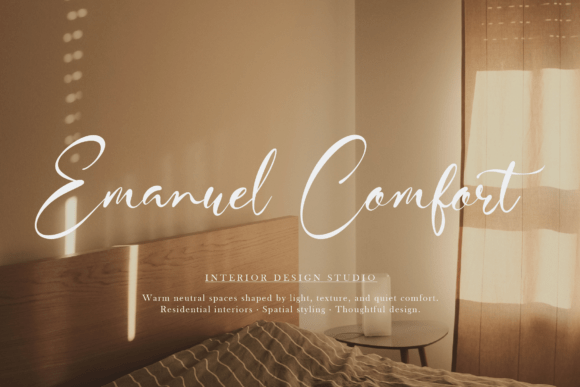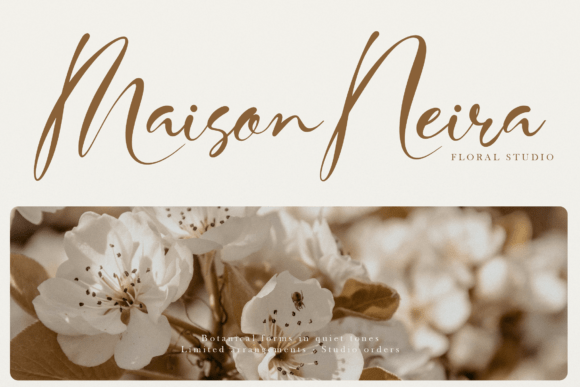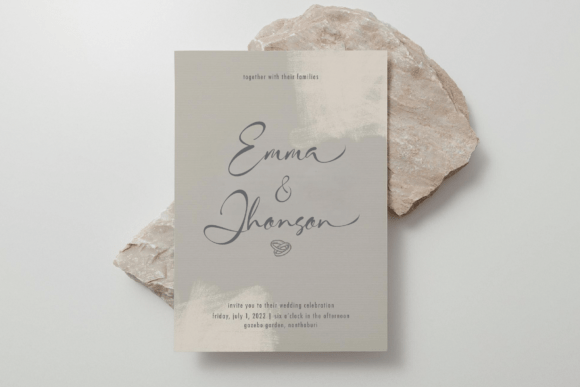
Introduction to Haniquta Font
The Haniguta font is a breathtaking display of beauty and grace, designed to bring an air of refined elegance to your most cherished projects.
This Haniguta typeface features delicate, dancing strokes and sophisticated flourishes that mimic the fluidity of professional hand-inked calligraphy It is the ultimate choice for high-end wedding invitations, luxury cosmetic branding, and romantic editorial layouts where a soft, feminine touch is required.
Key Features of Haniquta Font
Why Choose Haniquta Font?
Haniquta Font offers exceptional quality and versatility, making it a valuable addition to your design toolkit. Whether you’re creating for personal projects or commercial use, Haniquta Font delivers professional results.